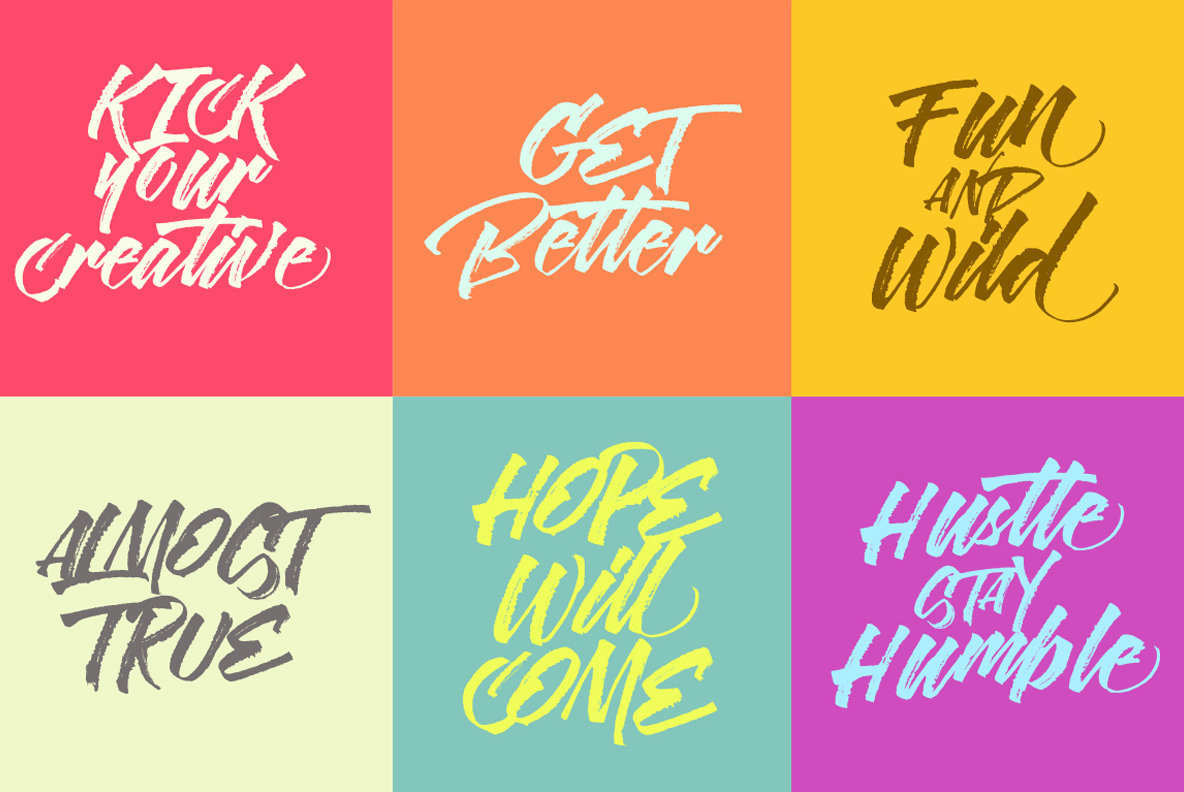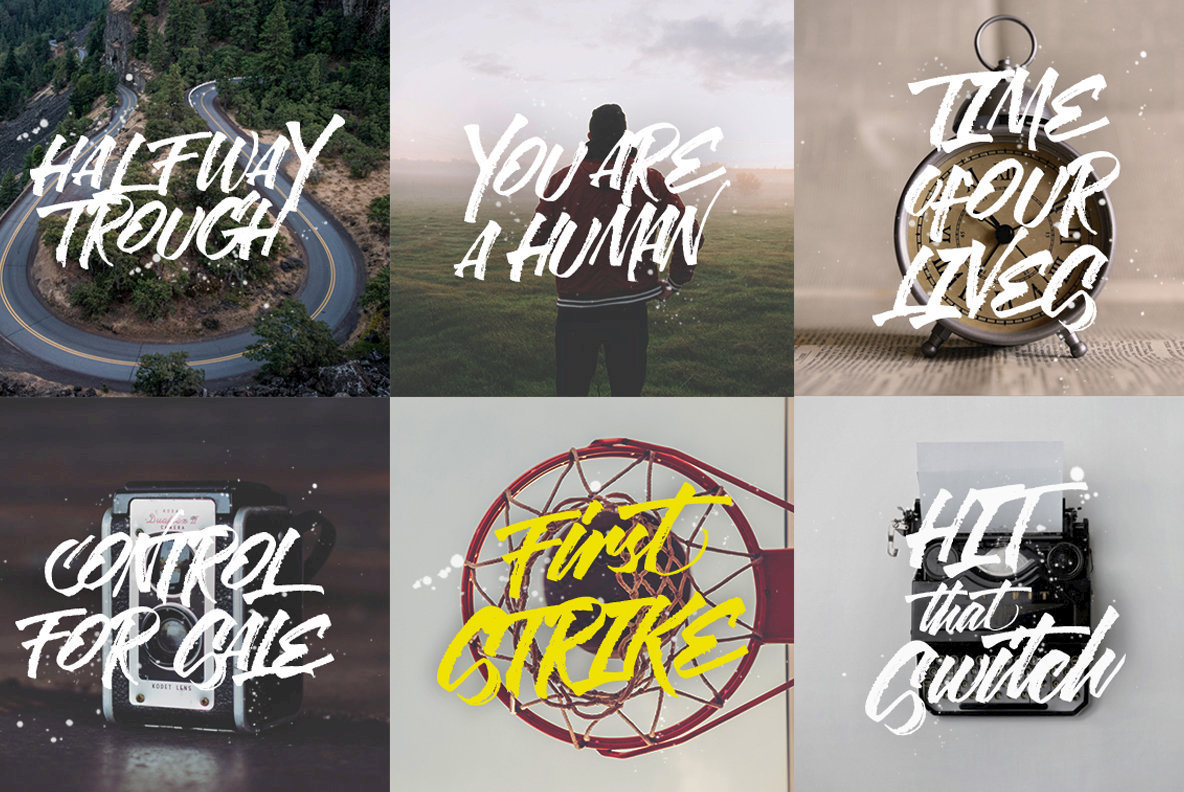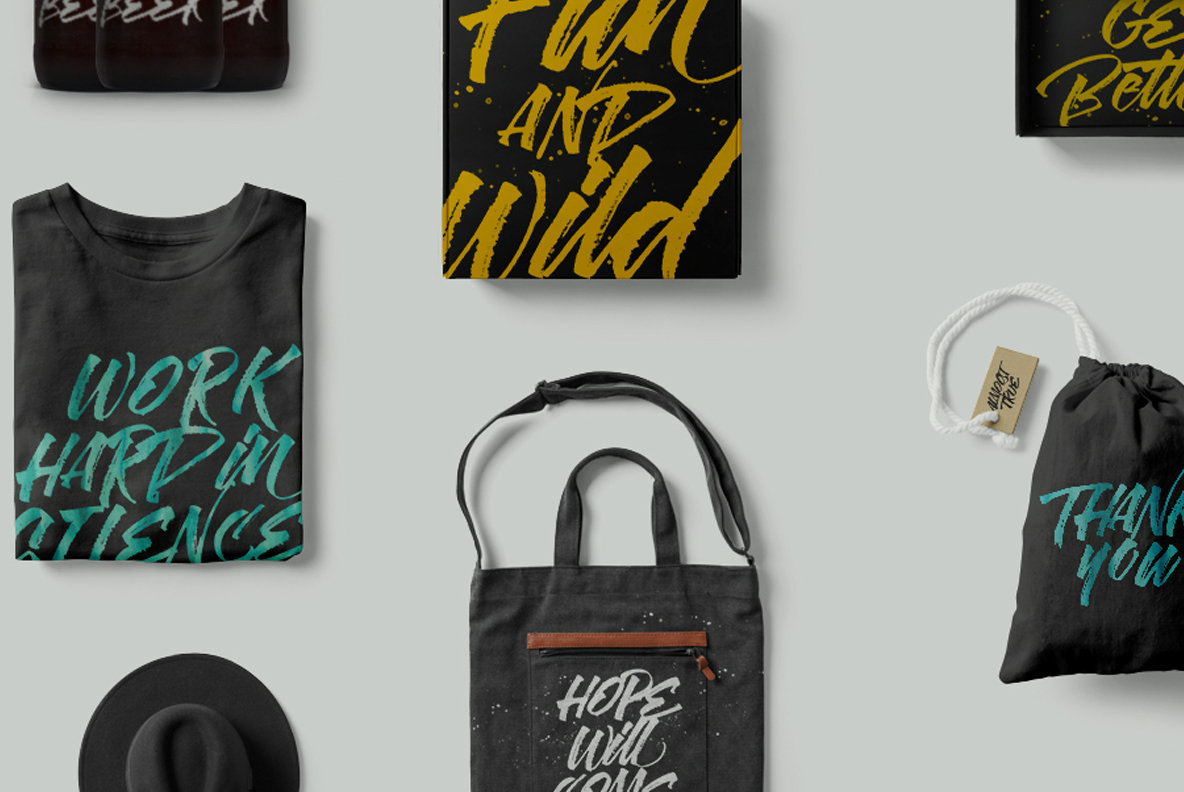
Rusty Cola Pen Font
Rusty Cola Pen
Rusty Cola Pen Allcaps
Rusty ColaPen type is hand painted style typeface designed to help you create the look of stunning custom hand-lettering.